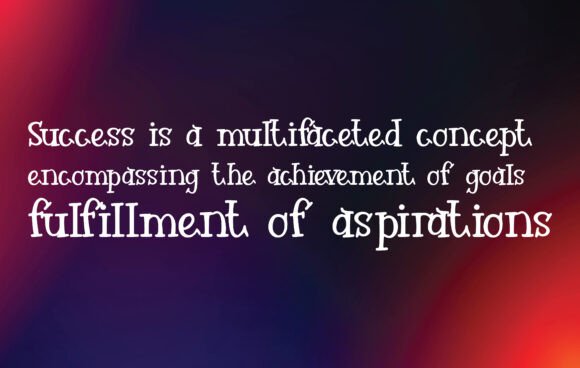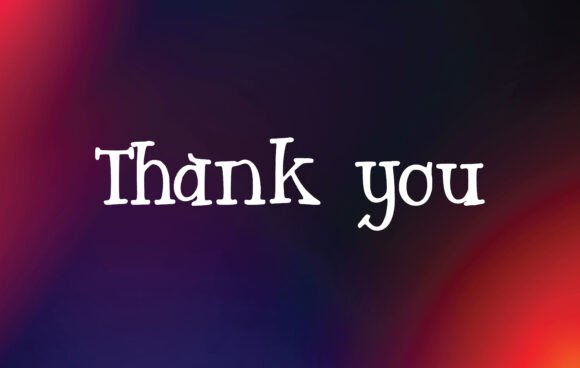
Introducing Blanket Font: Elevate Your Creative Projects with a Lovely Handwritten Style
Are you a designer, crafty person, or someone who loves to create beautiful visual content? Look no further than the Blanket Font, a stunning handwritten font that can take your creative ideas to new heights. With its unique and elegant style, Blanket is the perfect choice for creating eye-catching logos, branding, and quotes that will leave a lasting impression.
The Beauty of Blanket Font
Blanket Font is a lovely and beautiful handwritten font that boasts a distinctive charm. Its flowing lines, delicate curves, and subtle imperfections give it a personal and human touch that’s hard to resist. Whether you’re looking to create a logo, social media graphics, or a quote image, Blanket Font is the ideal choice for adding a touch of elegance and sophistication.
Why Choose Blanket Font?
So, what makes Blanket Font stand out from the rest? Here are just a few reasons why designers and crafters love this beautiful font:
- Unique and Creative: Blanket Font offers a fresh and unique style that’s perfect for creative projects. Its handwritten charm adds a personal touch that’s sure to capture attention.
- Elegant and Sophisticated: With its flowing lines and delicate curves, Blanket Font exudes elegance and sophistication. It’s perfect for creating high-end branding, logos, and quotes.
- Versatile: Blanket Font is incredibly versatile and can be used for a wide range of projects, from digital graphics to print materials.
- Easy to Read: Despite its elegant style, Blanket Font is easy to read and understand, making it perfect for quotes, sayings, and other text-based content.
How to Use Blanket Font
Using Blanket Font is easy! Here are a few tips to get you started:
- Logos and Branding: Use Blanket Font to create stunning logos and branding materials that reflect your unique style.
- Quotes and Sayings: Add a touch of elegance to your quote images and sayings with Blanket Font.
- Social Media Graphics: Use Blanket Font to create eye-catching social media graphics that will help you stand out from the crowd.
- Print Materials: Blanket Font is perfect for print materials, such as brochures, flyers, and business cards.
Tips for Pairing Blanket Font with Other Fonts
Pairing Blanket Font with other fonts can create a stunning visual effect. Here are a few tips to keep in mind:
- Contrasting Fonts: Pair Blanket Font with a bold, sans-serif font for a striking contrast.
- Script Fonts: Combine Blanket Font with another script font for a beautiful, elegant look.
- Serif Fonts: Pair Blanket Font with a serif font for a classic, sophisticated look.
In conclusion, Blanket Font is a beautiful and versatile handwritten font that’s perfect for designers, crafters, and anyone who loves to create stunning visual content. With its unique style, elegant charm, and ease of use, Blanket Font is sure to take your creative projects to new heights. So why wait? Give Blanket Font a try today and see the difference it can make!
Whether you’re looking to create eye-catching logos, branding, and quotes, or simply want to add a touch of elegance to your visual content, Blanket Font is the perfect choice. So go ahead, get creative, and let Blanket Font help you bring your ideas to life!